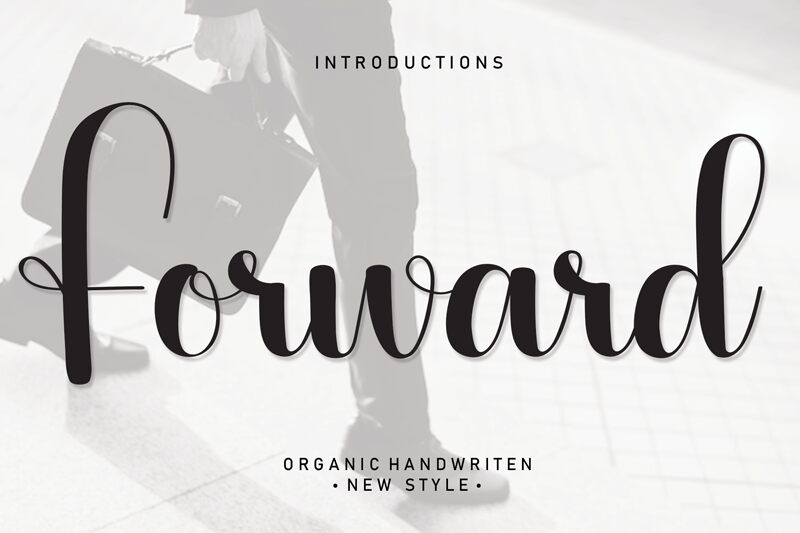
Forward
Forward font, designed by Scratchones, embodies a delightful handwritten charm that infuses personality into any design. Its flowing strokes and playful curves evoke a sense of warmth and creativity, making it perfect for projects that need a touch of authenticity. The light font weight allows the letters to dance gracefully across the page, while the elegant flourishes add an expressive flair that captivates the eye.
This unique style is versatile enough to enhance various applications-from whimsical invitations to engaging branding materials. Whether you’re designing a personal greeting card or crafting an inviting website header, Forward elevates your message with its artful presence and charming aesthetic. Let this font pave the way for your creative endeavors!